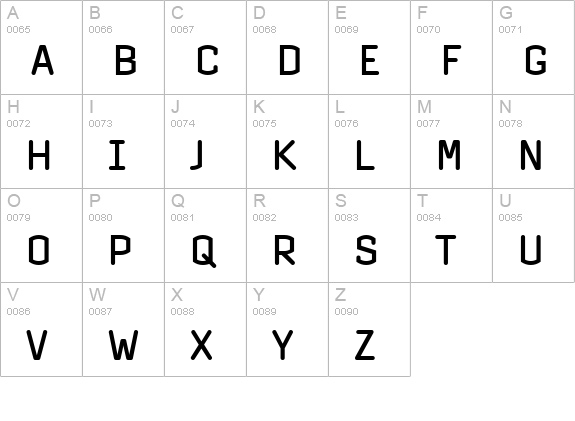
Clicker Font Details
Introducing Clicker font, a modern and stylish typeface perfect for various design projects. This font features clean lines and a sleek aesthetic that will enhance any creative work. Whether you're designing a logo, creating social media graphics, or crafting a website, Clicker font is sure to make a bold statement. Best of all, Clicker font is completely free to download at FontsMarket.com. This means you can add this versatile typeface to your font collection without any cost, making it a valuable resource for designers and creatives alike. Don't miss out on the opportunity to elevate your designs with Clicker font and bring a touch of sophistication to your projects. Download it today and start creating stunning visuals with ease.